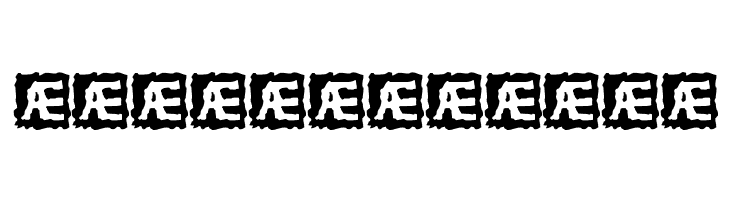
Vacer Sans Personal Thin Font
A thin, minimalist sans-serif font with geometric shapes and uniform strokes.
Vacer Serif Personal Bold Font
Font by Måns Grebäck
A bold serif font with strong vertical lines and thick serifs, exuding authority and tradition.
Vacer Serif Personal Black Font
Font by Måns Grebäck
A bold serif font with strong, commanding presence and modern versatility.
Vacations in Paradise Personal Use Font
A playful and artistic handwritten script font.
Vacant Capz BRK Font
Font by www.aenigmafonts.com
A bold, playful font with a three-dimensional outline and whimsical style.
Vacer Sans Personal Light Font
A modern, light sans-serif font with clean lines and balanced spacing.
Vdevaca-Bold Font
Font by Fernando Haro - defharo.com
A bold, playful font with a 3D effect and cartoonish style.
Vacer Sans Personal Book Font
A modern sans-serif font with clean lines and balanced spacing.
Vacer Serif Personal Fat Font
Font by Måns Grebäck
A bold, serif font with thick strokes and a vintage style.
Vacer Serif Personal Font
Font by Måns Grebäck
A bold, classic serif typeface with strong vertical lines and prominent serifs.
Digitrix Small Caps Regular Font